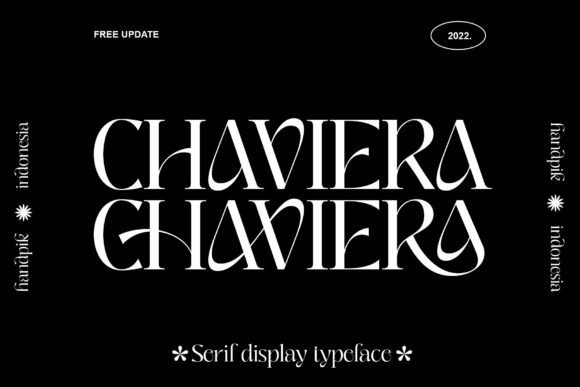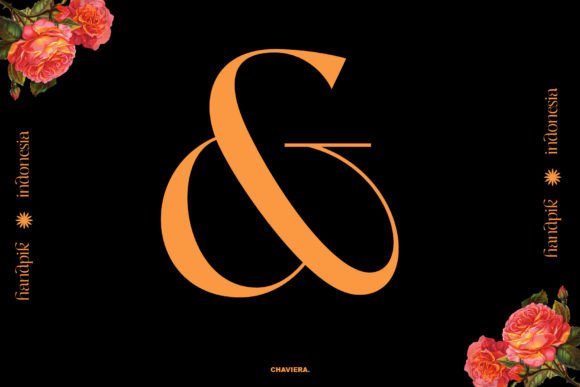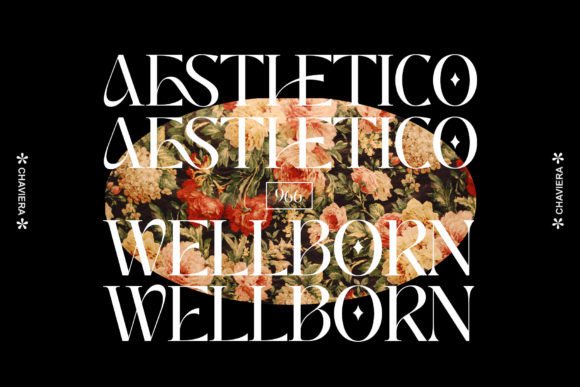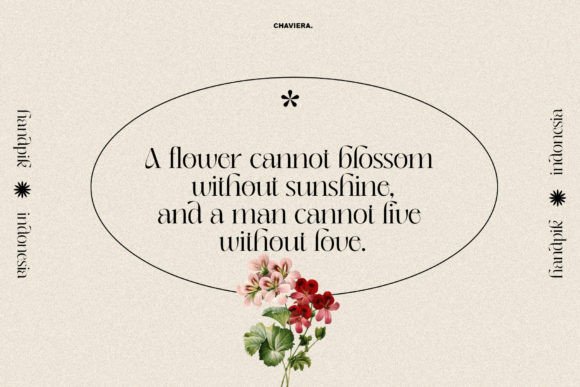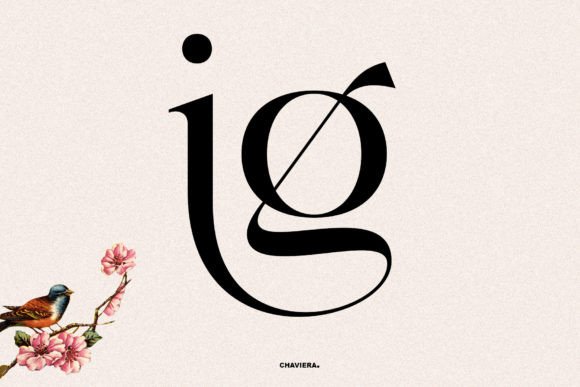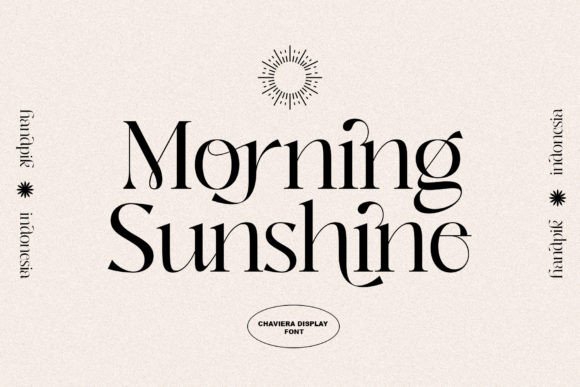
Discover the Elegance of Chaviera Font
As a designer, there’s nothing quite like the thrill of discovering a new font that perfectly captures the essence of your creative vision. It’s that moment when all the pieces come together, and your design takes on a life of its own. For me, that moment came when I stumbled upon the Chaviera Font – a beautiful and refined serif font that exudes a classy, elegant, and modern look.
With its versatility and timeless appeal, Chaviera Font is a valuable addition to any designer’s toolkit. Whether you’re crafting logos, branding materials, invitations, or social media posts, this font is sure to elevate your designs and leave a lasting impression. Its sophisticated style makes it an ideal choice for high-end projects, such as wedding designs, luxury stationery, and premium branding materials.
Chaviera Font Key Features
- Unique Characteristics: The Chaviera Font features a modern, elegant design with a unique blend of geometric and organic elements, making it perfect for branding, advertising, and editorial purposes.
Designer Review: Chaviera Font
As a designer, I was excited to try out the Chaviera font. Here’s my honest review:
✨ What works well:
- The Chaviera font has a unique, elegant feel to it. The combination of modern and classic elements makes it versatile and suitable for various projects.
- The font’s bold and italic styles add a nice depth to the font family.
- The font is highly legible, even at smaller sizes.
⚠️ Limitations:
- The font may be too ornate for some projects, especially those requiring a minimalist look.
- The font’s unique style may not be to everyone’s taste.
- The font family is not as extensive as some other popular font families.
Overall, I think the Chaviera font is a great addition to any designer’s toolkit. While it may have some limitations, its unique style and high legibility make it a great choice for many projects.
Tips for Getting the Most Out of Chaviera Font
1. Use the Chaviera Font for headings and titles to add a touch of elegance and sophistication.
2. Pair the Chaviera Font with a clean and simple sans-serif font for body text to create a visually appealing contrast.
3. Experiment with different font sizes and styles to create a unique and eye-catching design.
The Chaviera Font is suitable for a variety of designs, including:
2. Branding and logo design.
3. Fashion and beauty product packaging.
4. Luxury and high-end product design.
Alternatives to Chaviera Font
The Great Vibes Font is a beautiful, modern, and elegant script font. It’s perfect for creating a sense of sophistication and luxury in your designs. Use it for invitations, wedding designs, or any project that requires a touch of elegance. Compared to Chaviera Font, Great Vibes Font has a more refined and polished feel, making it ideal for high-end designs.
The Carolyna Pro Font is a modern calligraphy font with a feminine touch. It’s perfect for creating a sense of romance and whimsy in your designs. Use it for wedding designs, invitations, or any project that requires a touch of elegance and sophistication. Compared to Chaviera Font, Carolyna Pro Font has a more delicate and intricate feel, making it ideal for designs that require a lot of detail.
The Playfair Display Font is a luxurious and elegant font with a touch of vintage charm. It’s perfect for creating a sense of sophistication and refinement in your designs. Use it for high-end designs, luxury brands, or any project that requires a touch of elegance and sophistication. Compared to Chaviera Font, Playfair Display Font has a more dramatic and luxurious feel, making it ideal for designs that require a lot of impact.
The Alex Brush Font is a beautiful and elegant script font with a touch of whimsy. It’s perfect for creating a sense of romance and sophistication in your designs. Use it for invitations, wedding designs, or any project that requires a touch of elegance and refinement. Compared to Chaviera Font, Alex Brush Font has a more delicate and intricate feel, making it ideal for designs that require a lot of detail and a touch of whimsy